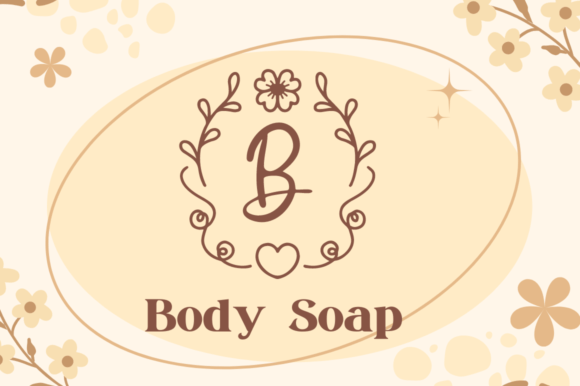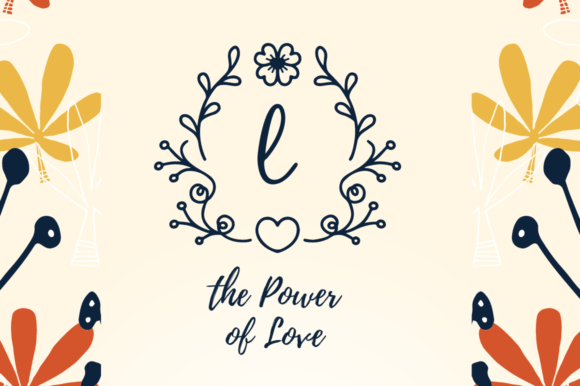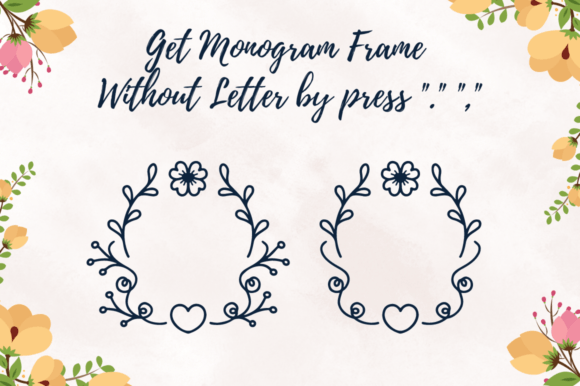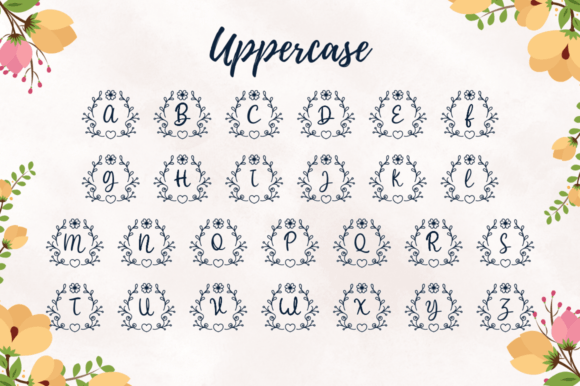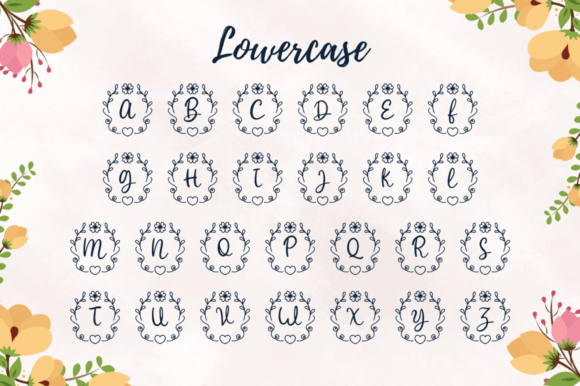
The Perfect Monogram Font for Your Next Creative Project
Have you ever found yourself rummaging through your design files, searching for the perfect font to match your client’s wedding invitation or logo? I know I have! It’s that moment of creative frustration when you finally stumble upon the perfect font, and it all falls into place.
Enter the Abigail Valentine Monogram Font, a beautiful decorative font designed to elevate your designs and leave a lasting impression. With its elegant and sophisticated style, this font is perfect for special occasions, business designs, logos, branding, social media posts, and wedding cards. The best part? It comes in two styles, allowing you to easily switch between uppercase and lowercase to create unique designs.
Abigail Valentine Monogram Font Key Features
- Font Style: Script, Monogram
- Font Size: Available in various sizes, including 100-200 pt
- Resolution: Supports high-resolution designs, ideal for printing and digital use
- Unique Characteristics: Elegant, cursive script design; perfect for wedding invitations, monogrammed gifts, and other special occasions
- Font Weight: Available in Regular and Bold weights for added versatility
Designer Review: Abigail Valentine Monogram Font
I recently had the chance to work with the Abigail Valentine Monogram Font, and I’m excited to share my honest thoughts on this beautiful font.
- Unique and elegant design: The Abigail Valentine Monogram Font is a stunning addition to any design project. Its unique blend of modern and classic elements makes it perfect for creating eye-catching graphics.
- Easy to use: The font is incredibly easy to use, even for designers who are new to monogram fonts.
- Limited character set: The font only comes with a limited character set, which may not be suitable for designers who need to use a wide range of characters.
- No bold or italic versions: The font only comes in regular weight, which may not be suitable for designers who need to create bold or italic text.
Overall, I’m really impressed with the Abigail Valentine Monogram Font. Its unique design and high-quality vector files make it a great addition to any design project. However, the limited character set and lack of bold or italic versions may be a limitation for some designers. If you’re looking for a beautiful and elegant monogram font, I would definitely recommend giving this one a try.
Use the Abigail Valentine Monogram Font for:
Personalized gifts and decorations
Special occasion graphics and designs
For best results, use the font in conjunction with elegant and sophisticated designs.
Experiment with different font sizes, colors, and styles to create unique and eye-catching designs.
Unique and Creative Project Ideas using Abigail Valentine Monogram Font
Project 1: Custom Monogram Stationery
Create personalized stationery for special occasions like weddings, birthdays, or holidays. Use the Abigail Valentine Monogram Font to add a touch of elegance and sophistication.